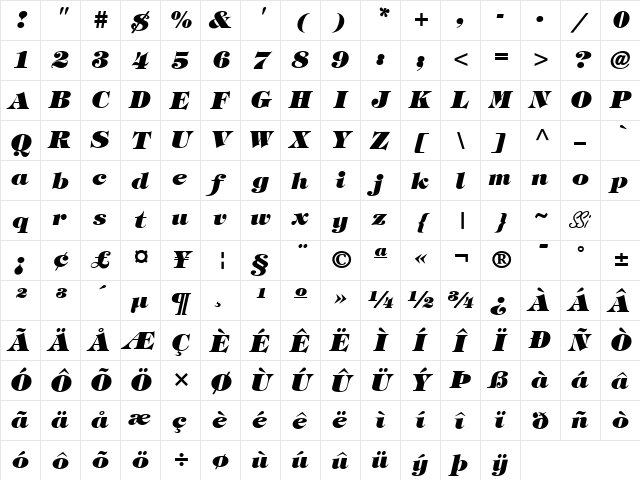
Complete Sophisticate Ultra SSi Black Italic glyph index. Displaying only characters natively supported by Sophisticate Ultra SSi Black Italic font.
Sophisticate Ultra SSi is a composed and adaptable typeface that performs quietly and consistently across a wide range of design contexts. The slanted form adds forward momentum and visual energy.
Pro Tip: Use Sophisticate Ultra SSi for emphasis, pull quotes, and subheadings where its slanted energy can add rhythm to the layout.